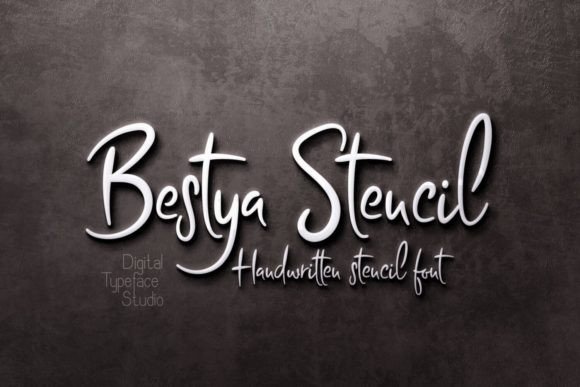
Download Bestya Stencil Font for free! Created by Digital Typeface Studio and published by Eli Bridges, this script font family is perfect for adding a unique touch to your designs.